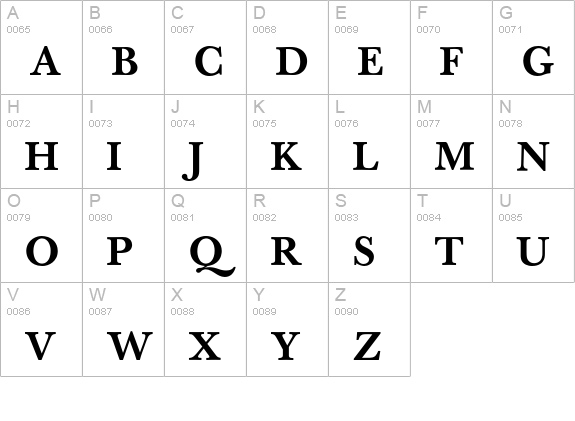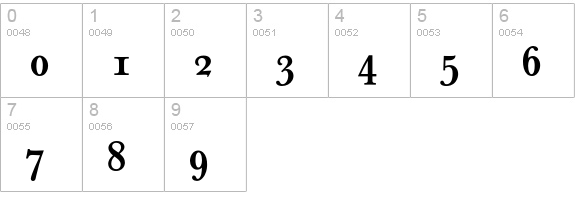
Baskerville Book BQ Medium Font Details
Baskerville Book BQ Medium is a comfortable, highly readable variant in the Baskerville typeface family \xE2\x80\x94 well suited to long-form body text, articles, and editorial content.
Baskerville Book BQ Medium is a timeless and elegant serif font that exudes sophistication and class. With its balanced proportions and distinctive letterforms, this font is perfect for conveying a sense of tradition and refinement in your projects. The medium weight of Baskerville Book BQ strikes the perfect balance between readability and style, making it versatile for a wide range of design applications. What sets Baskerville Book BQ Medium apart is that it is available for free download at FontsMarket.com. This means you can easily access and use this premium font in your projects without any cost. Whether you are working on print materials, digital designs, or branding projects, Baskerville Book BQ Medium is sure to elevate your work with its timeless appeal and elegant aesthetic. Download Baskerville Book BQ Medium for free today and add a touch of sophistication to your designs with this classic serif font.